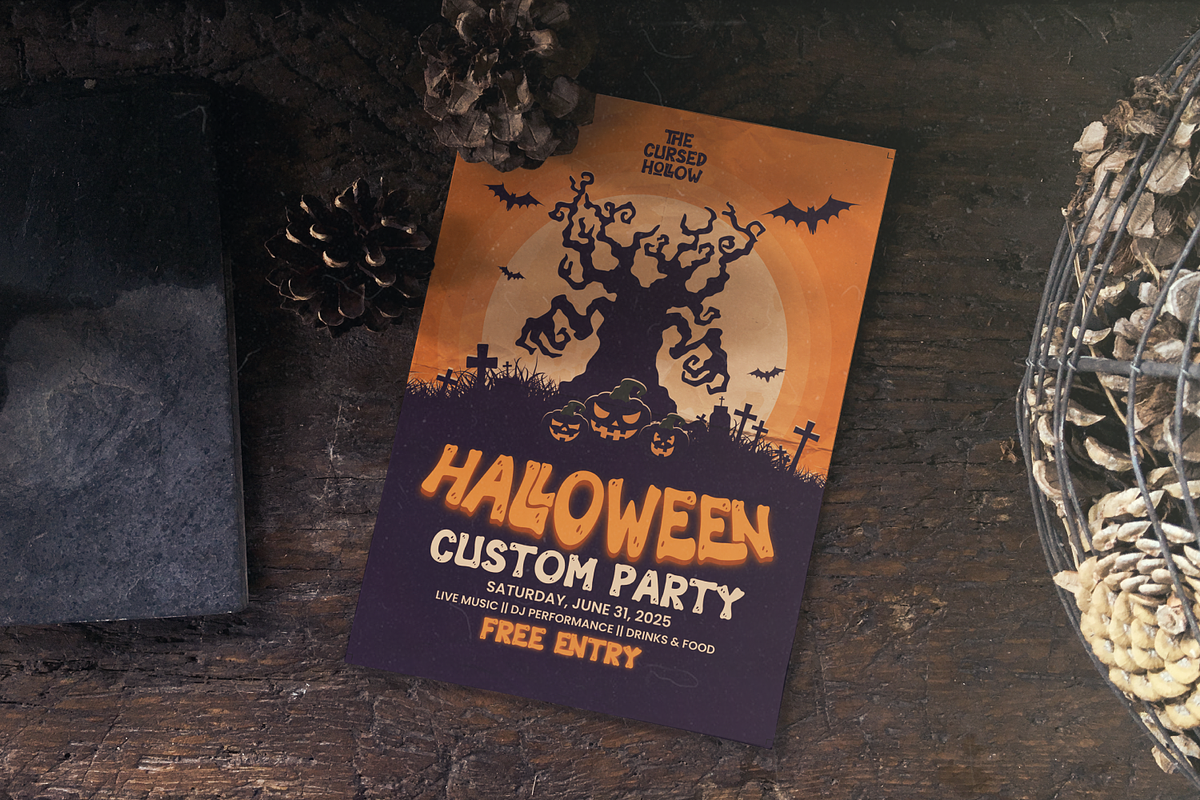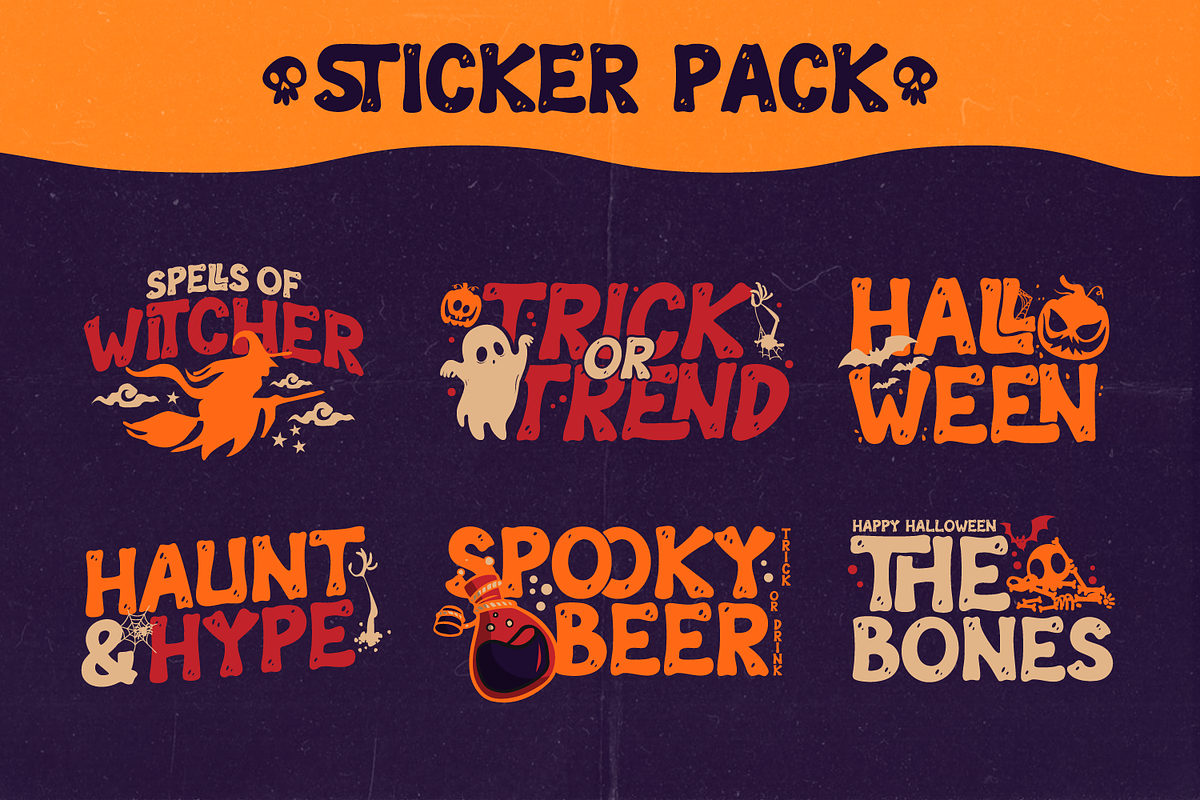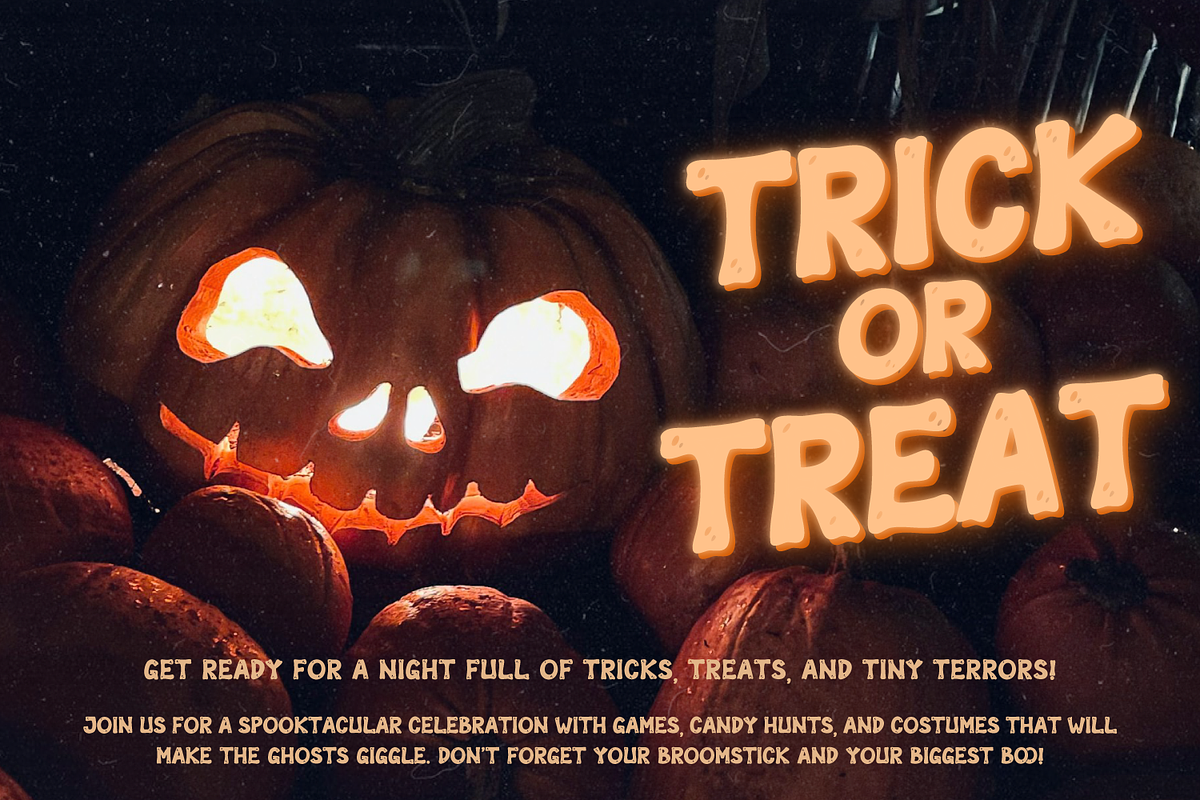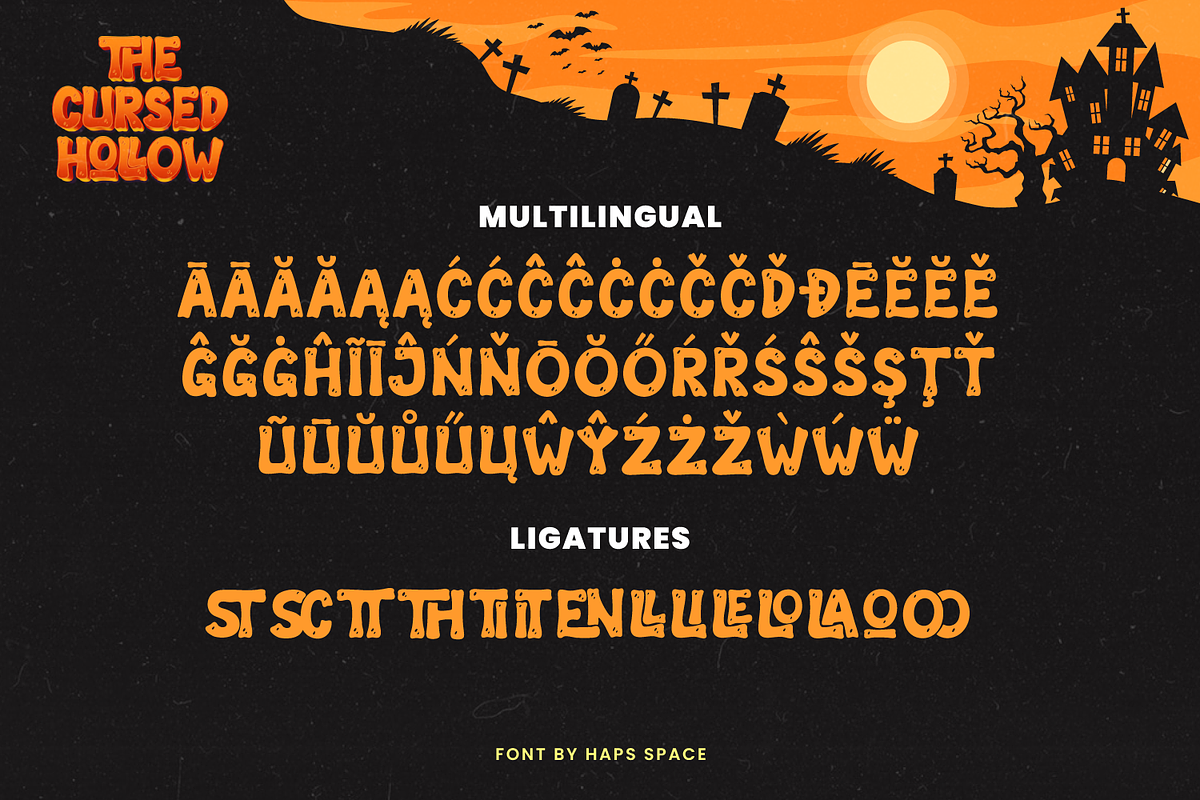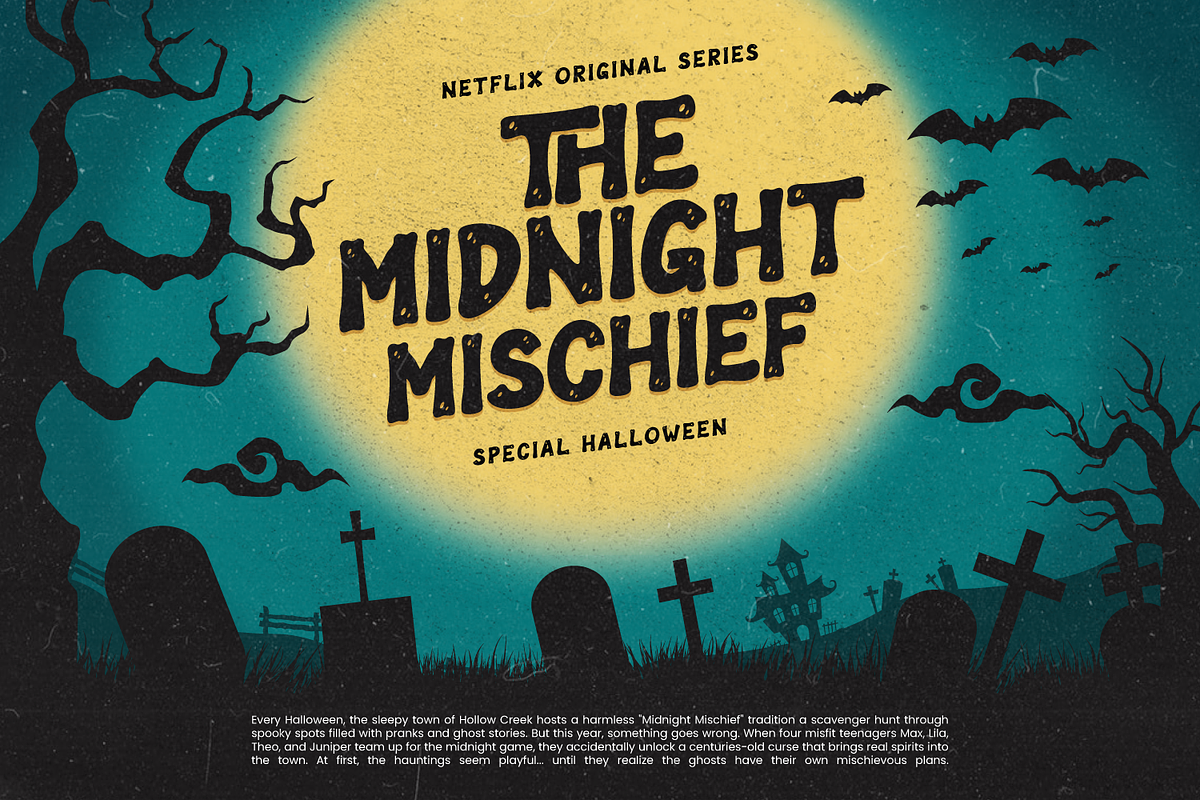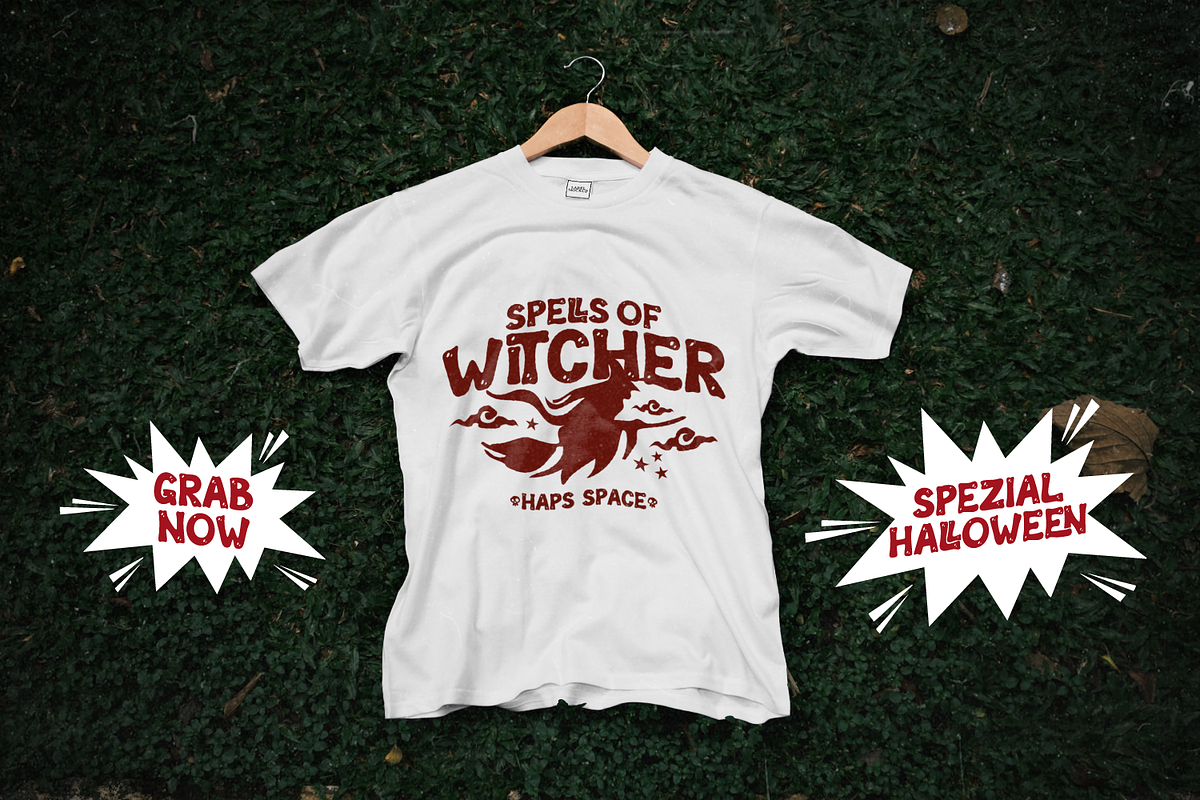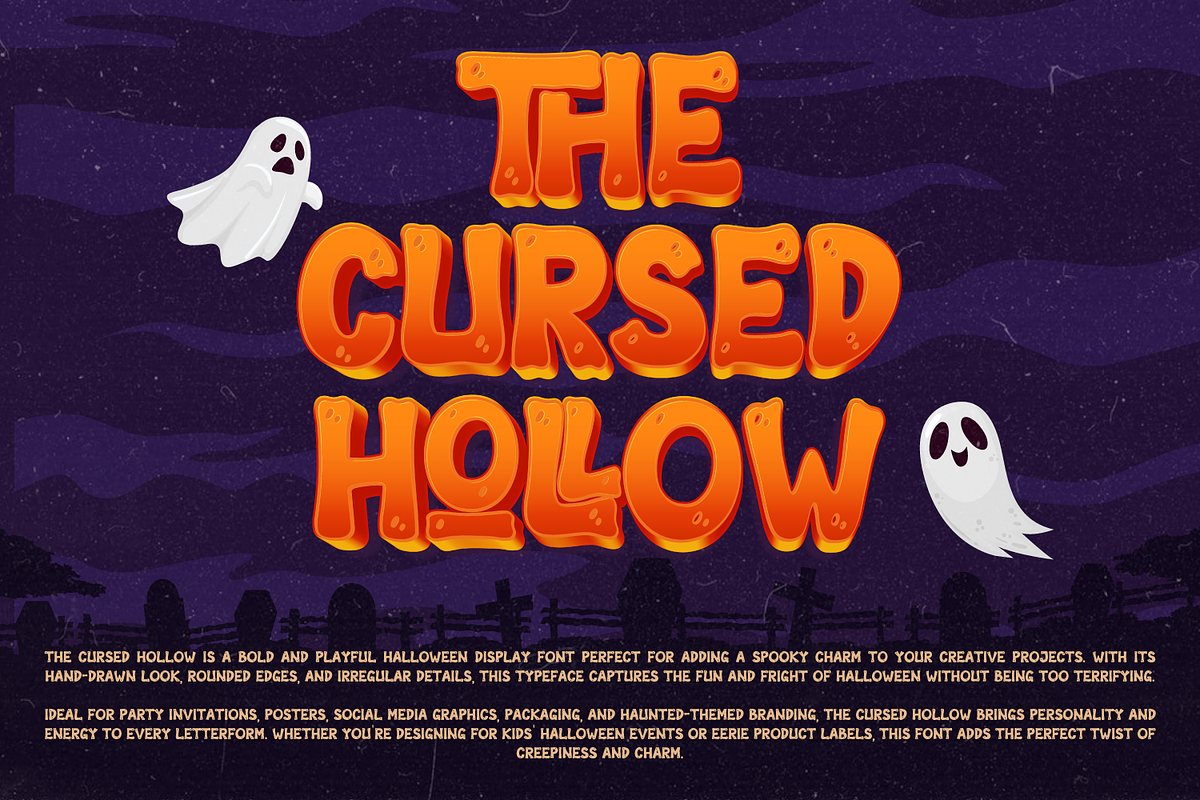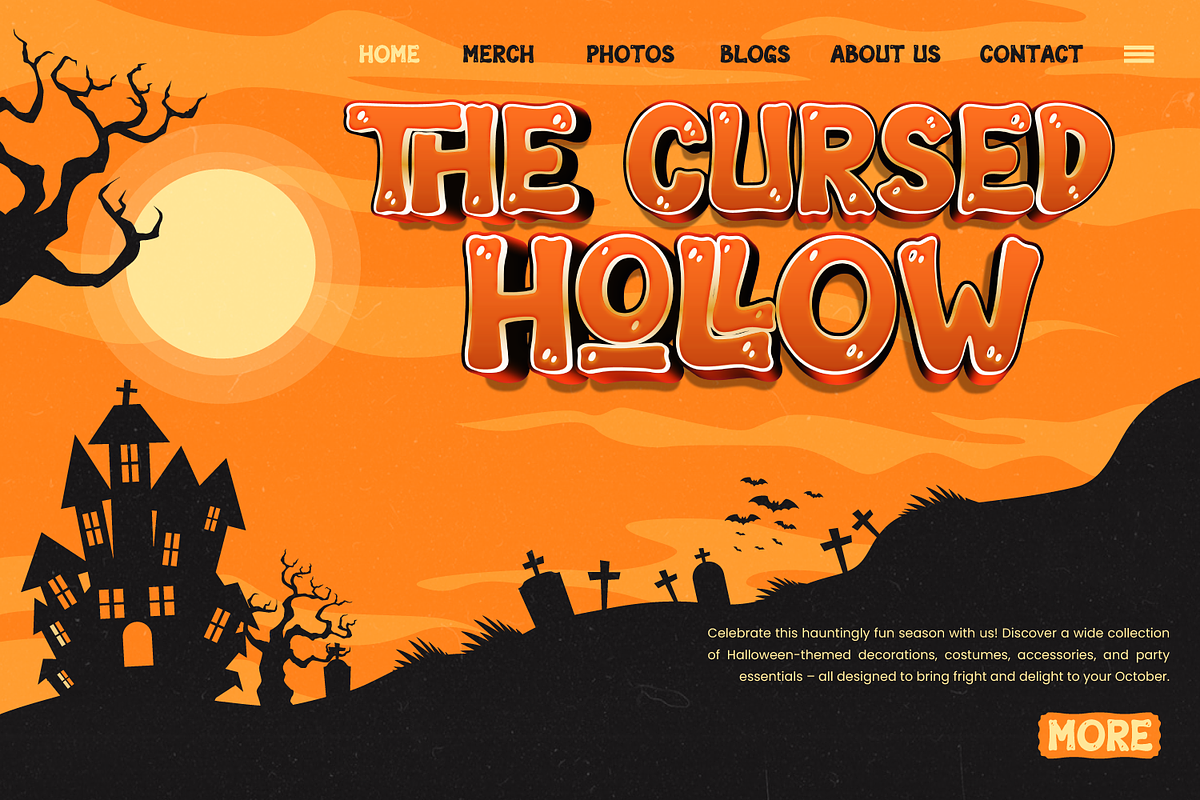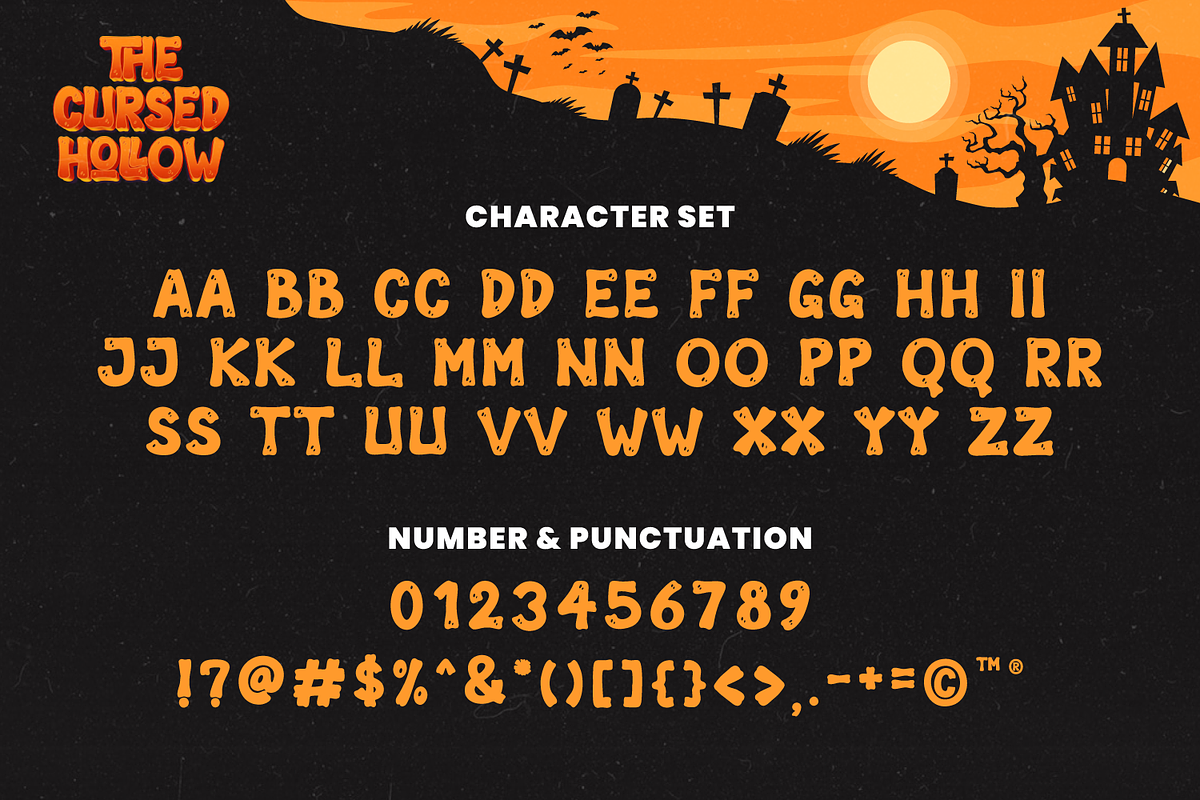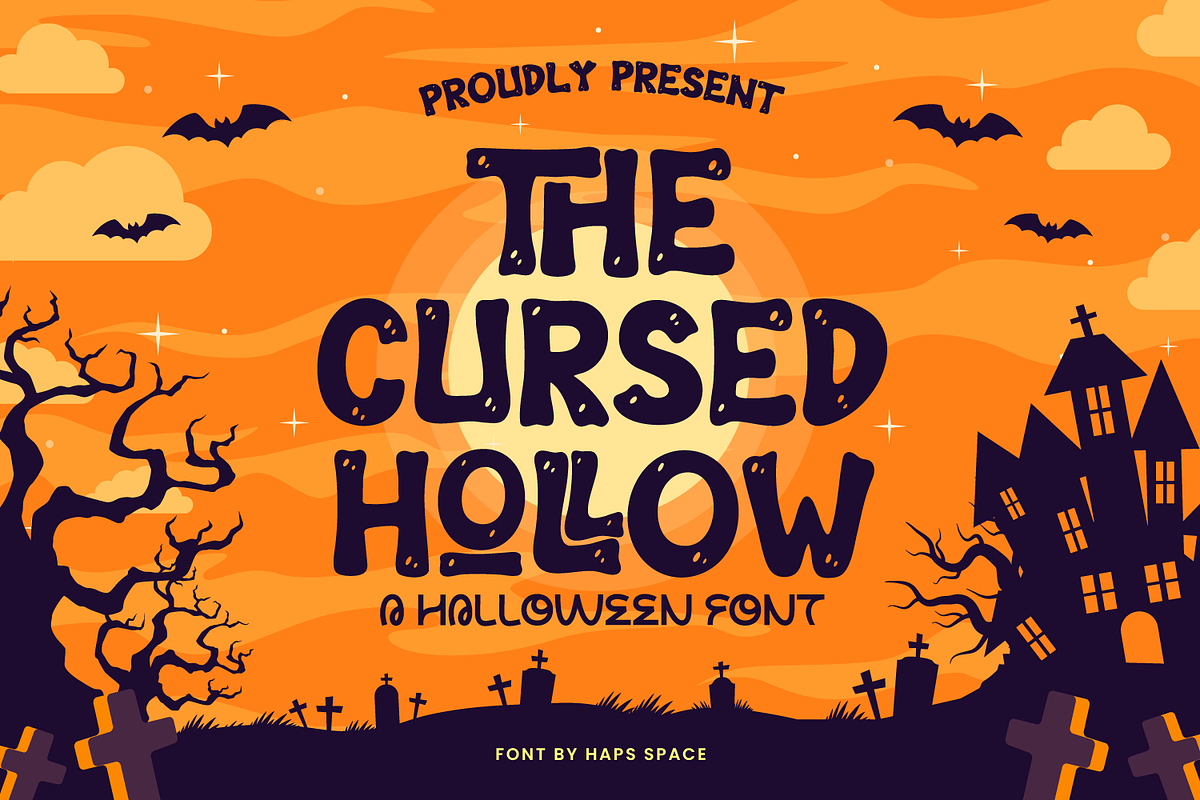
Cursed Hollow Playful Halloween Disp
The Cursed Hollow is a bold and playful Halloween display font perfect for adding a spooky charm to your creative projects. With its hand-drawn look, rounded edges, and irregular details, this typeface captures the fun and fright of Halloween without being too terrifying.
Ideal for party invitations, posters, social media graphics, packaging, and haunted-themed branding, The Cursed Hollow brings personality and energy to every letterform. Whether you're designing for kids' Halloween events or eerie product labels, this font adds the perfect twist of creepiness and charm.
- Fun, cartoonish horror aesthetic
- Perfect for Halloween, trick-or-treat graphics, or spooky game titles
- Bring your Halloween designs to life with The Cursed Hollow – if you dare!